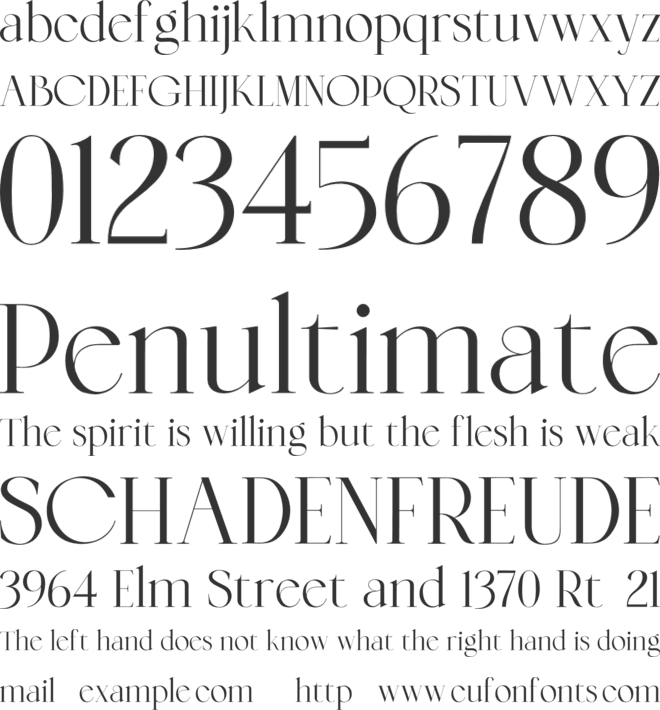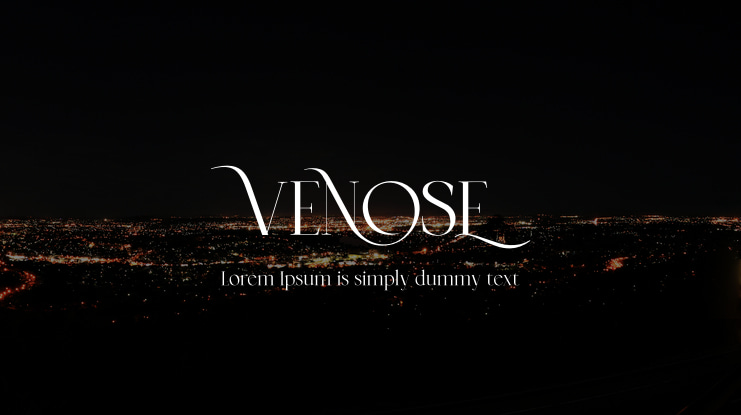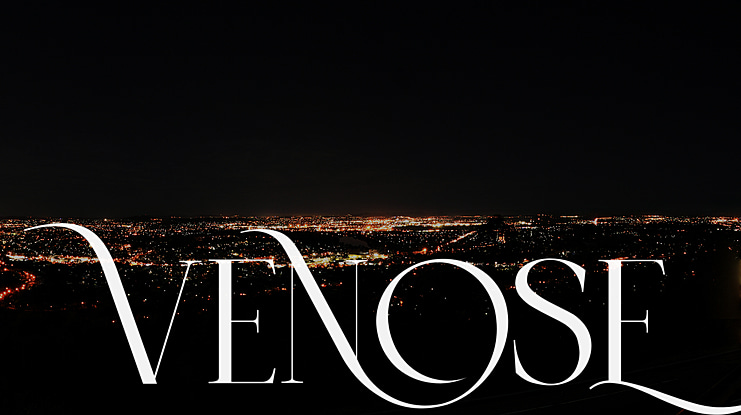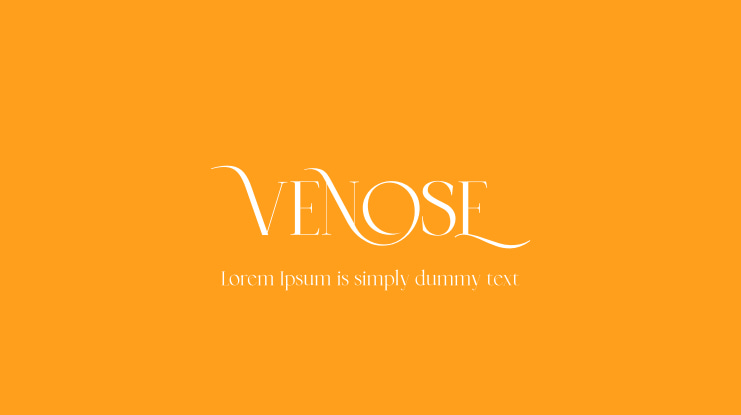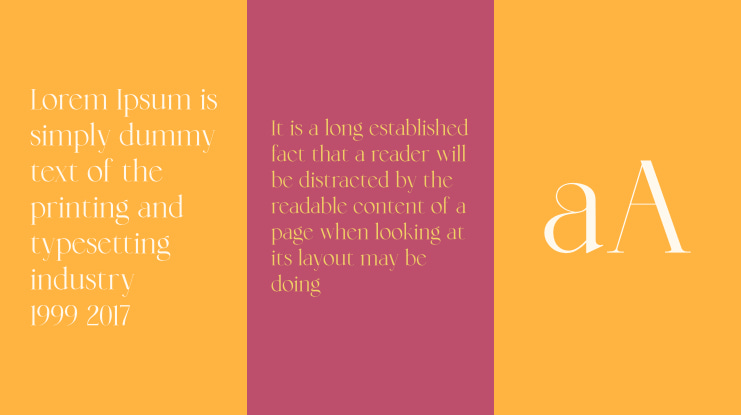
VENOSE Font
Venose is a serif typeface crafted with elegance and luxury. For those of you who are needing a touch of elegant, stylish, classy, chic and modernity for your designs, this font was created for you!
This font is perfect for branding projects, fashion, logos, magazine imagery, jewelry, wedding invitations, posters, apparel, packaging, website headers, or simply as a stylish text overlay onto any background image.
VENOSE font preview